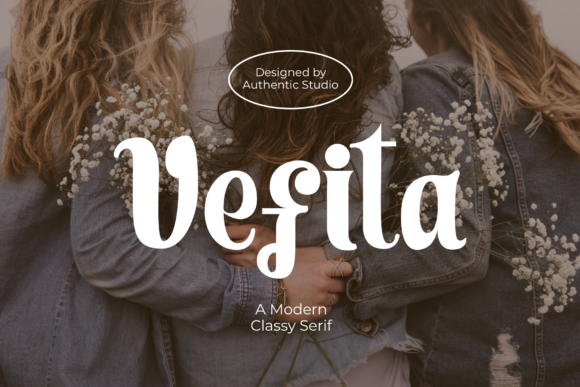
Prepare to be amazed by Vefita Font, a modern, thick-lettered, and bold serif font. This masterpiece by Authentic Studio is not just a font; it's an art form. Vefita's unique and eye-grabbing design will make your creative ideas shine like never before.
With Vefita, you'll discover a world of endless possibilities. Its striking presence will instantly elevate your designs, whether it's a captivating logo, an intriguing poster, or an unforgettable website. Its bold and confident strokes exude a sense of power and sophistication, leaving a lasting impression on anyone who encounters your creations.
Vefita's versatility is simply breathtaking. It seamlessly adapts to various design styles, from classic and elegant to contemporary and edgy. Its thick, pronounced serifs add a touch of vintage charm while maintaining a modern aesthetic. Whether you're designing a vintage-inspired poster or a futuristic website, Vefita effortlessly complements your vision.
Unleash your creativity and let Vefita take center stage in your designs. Its thick, bold letters demand attention, ensuring your message is conveyed with impact and clarity. Its unique character adds a touch of personality, making your designs truly memorable.
Experience the transformative power of Vefita and elevate your creative projects to new heights. Its bold presence will captivate your audience, leaving them in awe of your design prowess. Embrace the beauty of thick and bold serifs, and let Vefita become your go-to font for creating designs that resonate and inspire.